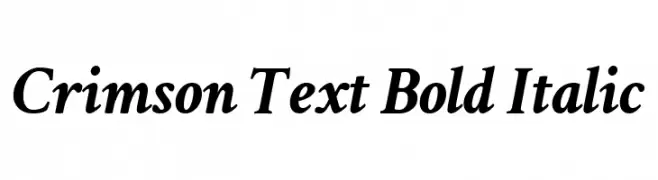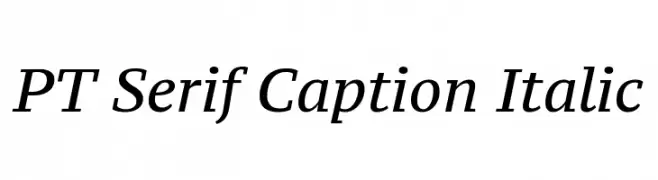
A playful, retro-inspired font with bold, quirky letterforms.
A fluid and elegant handwritten font with a natural, personal touch.
A playful, hand-drawn font with a whimsical and casual style.
A modern serif font with classic elegance and excellent readability.
Elegant serif font with a subtle italic slant and medium contrast.
A classic serif font with semi-bold weight and elegant, refined details.
A classic serif font with bold, elegant characters and balanced proportions.
A bold, italic serif font with a classic and elegant style.
A classic serif font with semi-bold weight and elegant italics.
A classic, elegant italic serif font with refined serifs and balanced contrast.